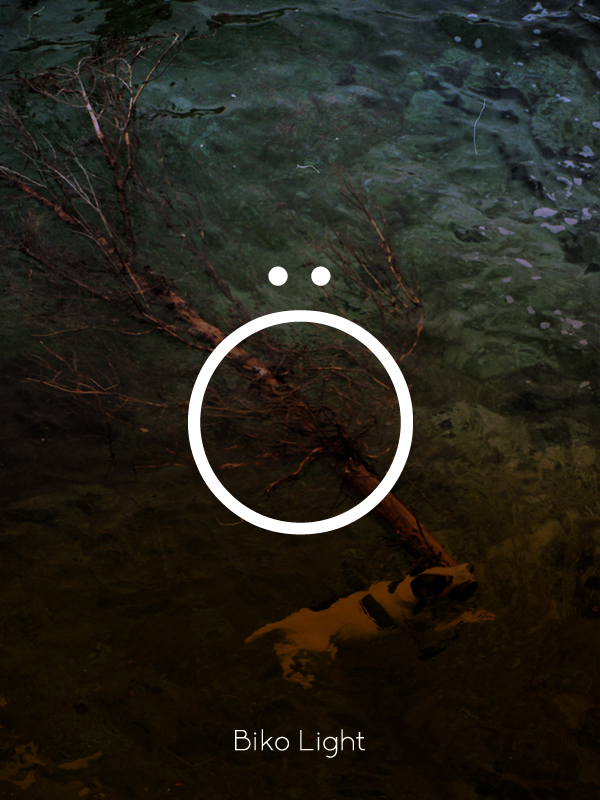
Now also Light, Biko is a geometric sans serif with a strong and yet friendly character. The font is perfect for display, copy text and logos. The name is a tribute to Steve Biko: a South African anti-apartheid activist. For commercial use, you can purchase the font at: http://www.jesuismonreve.org |